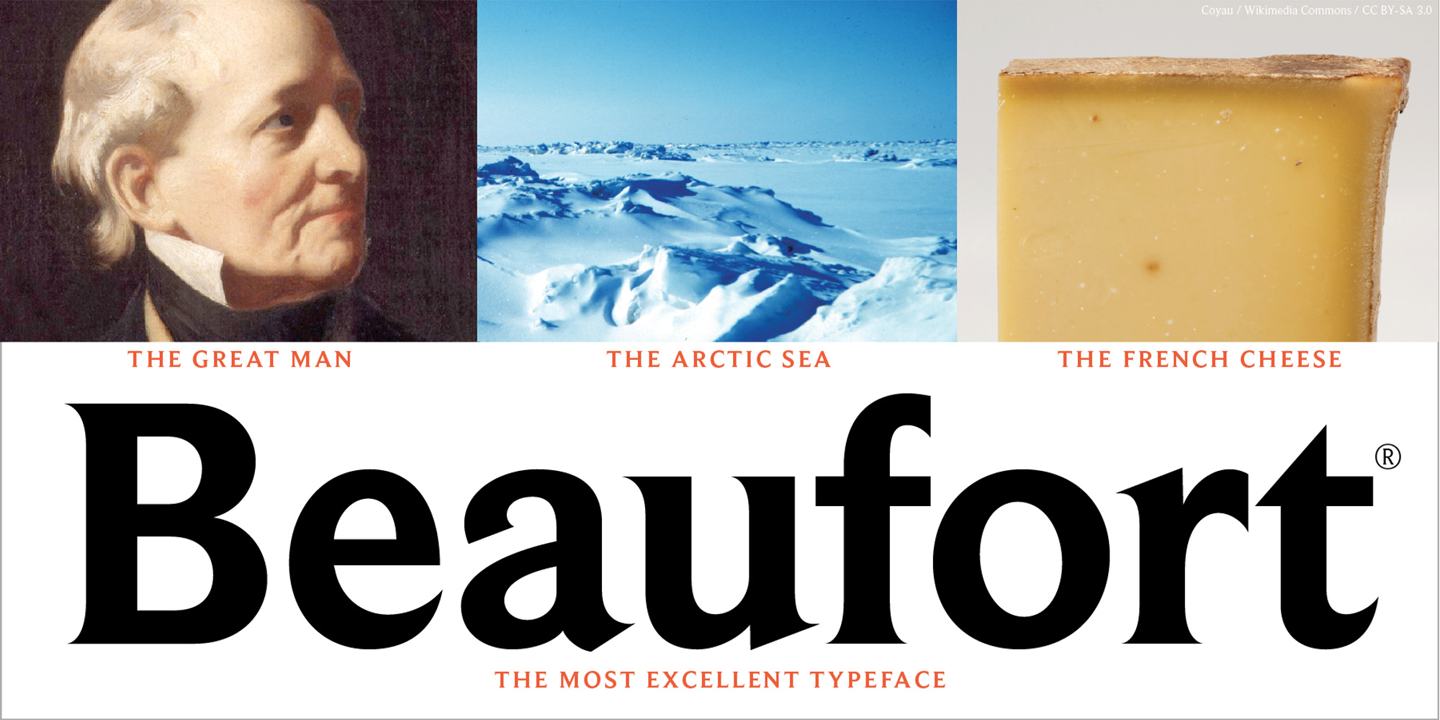
Beaufort Font is perfect for nautical branding, maritime museum displays, coastal resort signage, sailing club materials, marine expedition logos, ocean conservation projects, seaside restaurant menus, yacht club communications, harbor master documentation, and any projects that need authentic maritime typography with seafaring heritage and coastal elegance.
What makes Beaufort Font exciting is its authentic naval heritage that captures the proud tradition of maritime typography with letterforms inspired by classic ship lettering and naval documentation from the golden age of sailing. This distinguished typeface features robust characteristics with weathered elegance that evokes salt spray, ocean winds, and the timeless romance of life at sea. The font's maritime character makes it perfect for brands seeking to communicate adventure, tradition, and the enduring appeal of nautical culture in their visual communications.
Beaufort Font family includes seaworthy style variations featuring regular, bold, condensed, and weathered versions. The font family also contains maritime decorative elements, compass roses, anchor symbols, and nautical ornaments that enhance the seafaring atmosphere. Additional options include distressed variants that simulate ocean aging, along with special character sets designed for different nautical moods and maritime themes.
Set sail with Beaufort Font Free Download and navigate your creative projects toward horizons of maritime excellence with typography that honors the noble traditions of the sea. This authentic typeface perfectly balances nautical heritage with contemporary functionality, making it ideal for both commanding headlines and detailed maritime documentation. Download Beaufort Font today and chart your course with typography that captures the spirit of ocean adventure, creating lasting connections with audiences who feel the eternal call of the sea and appreciate the timeless traditions of maritime culture and seafaring excellence.